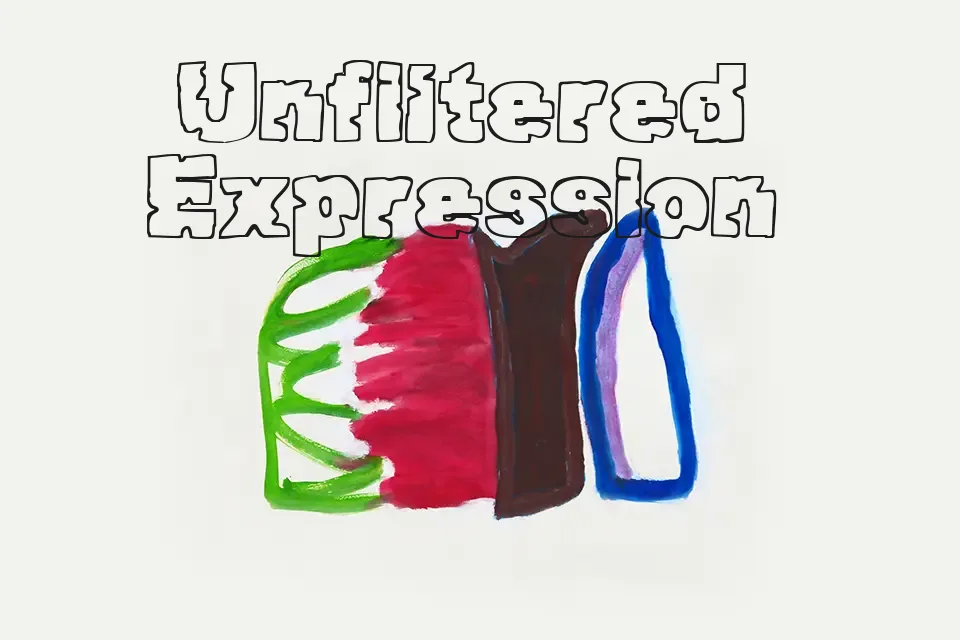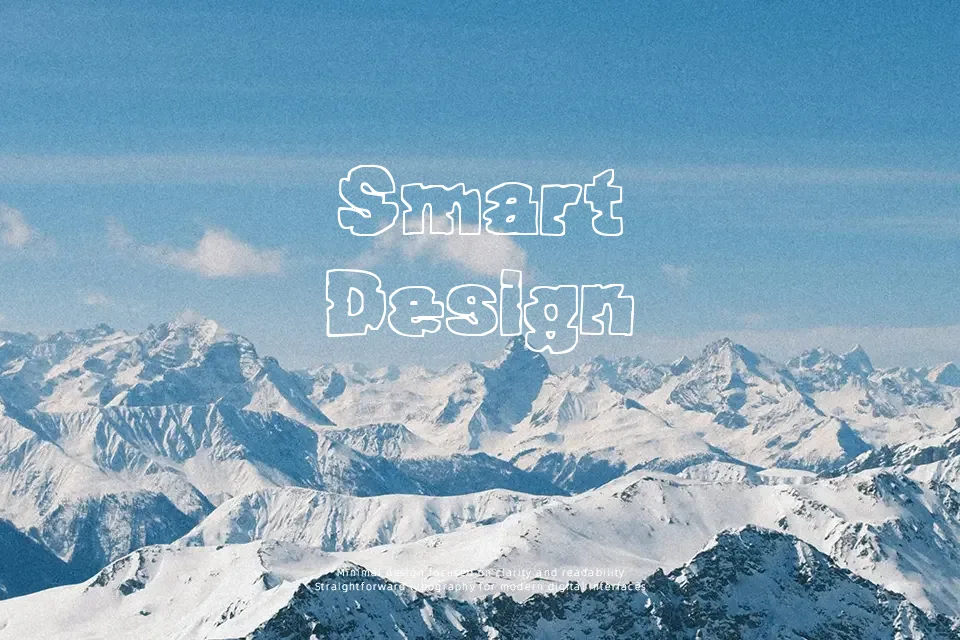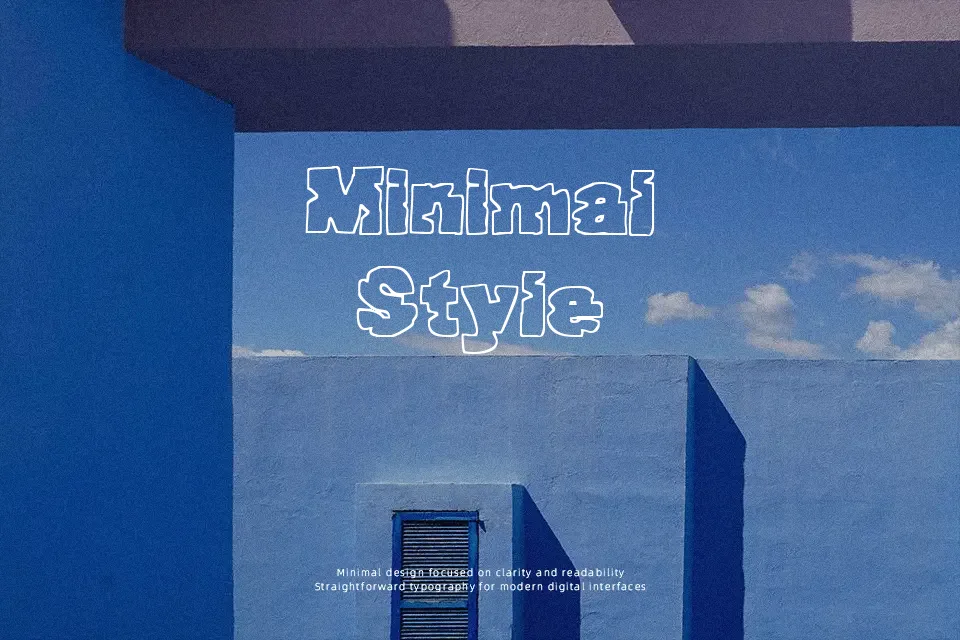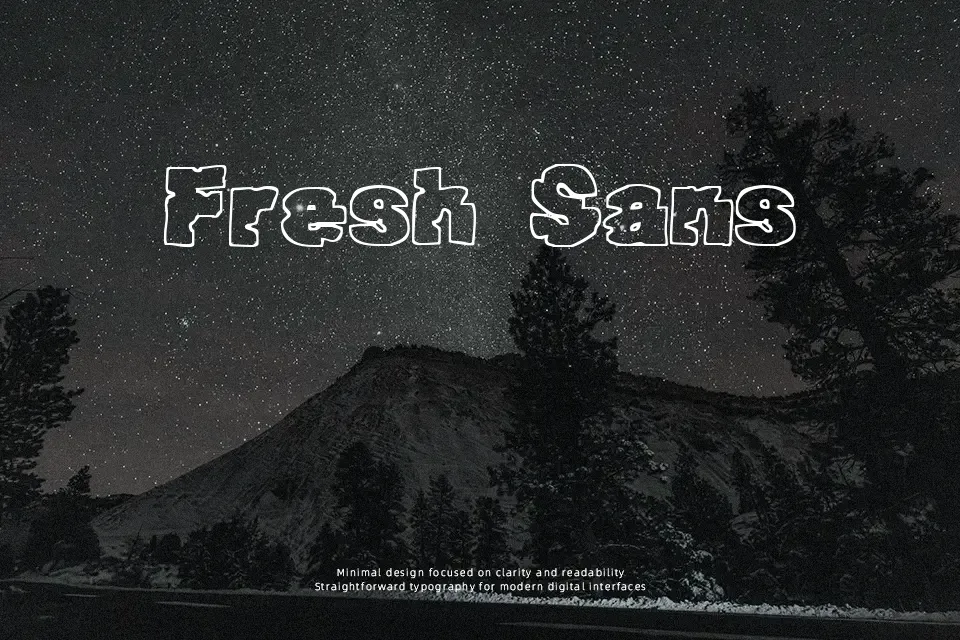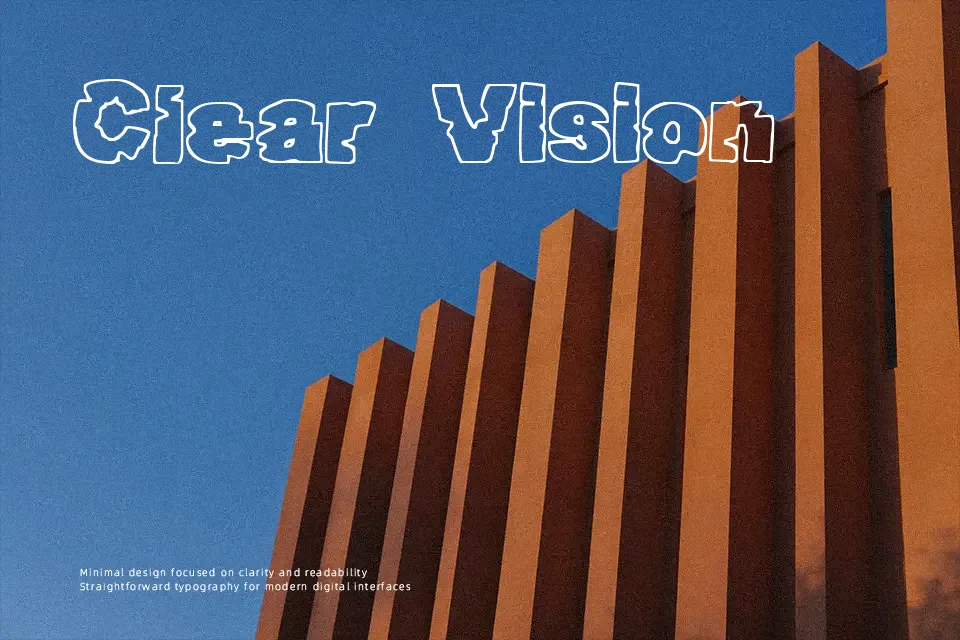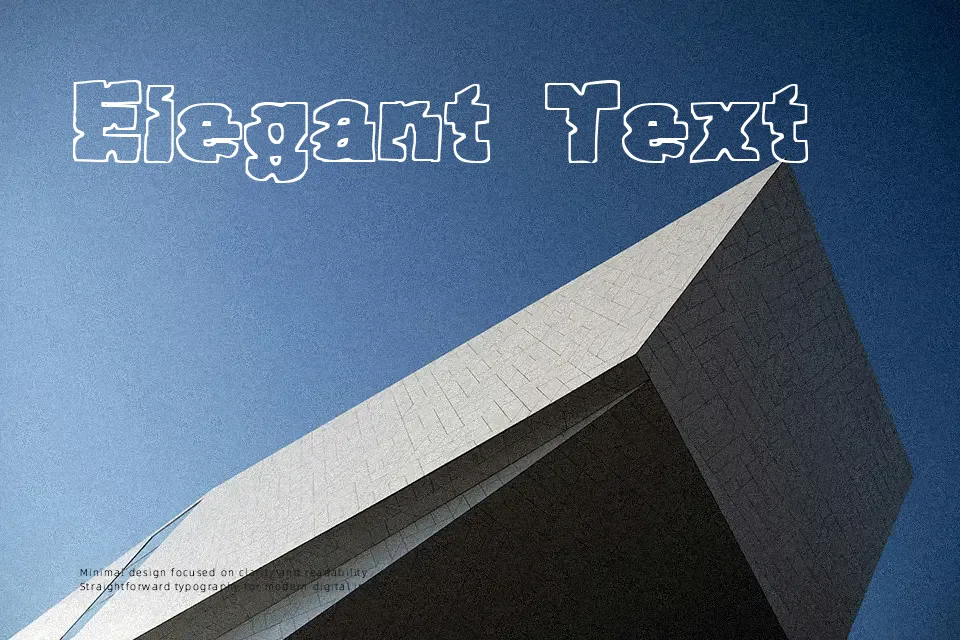
Raptor Attack Font
Designed by Dry Heaves Fonts
Evaluated from a visual perspective, Raptor Attack Font introduces a fierce, jagged aesthetic to the display cartoon category. The letterforms are constructed with sharp, irregular strokes and an uneven baseline, giving the typography a sense of dynamic movement and raw energy. Its heavier weight ensures strong visibility in large formats, allowing characters to stand out in action-oriented branding. The unpredictable spacing adds to the aggressive tone, creating a distinct rhythm across short headlines. However, these highly decorative and scratchy details significantly reduce legibility at smaller scales, making the typeface much less suitable for continuous reading. The aggressive styling performs best when applied to oversized text for maximum impact.
action movie posters, comic book titles, video game branding, toy packaging
dense editorial layouts, small interface labels, corporate reports, continuous reading